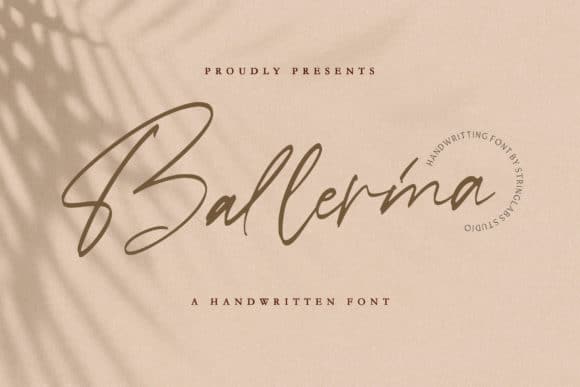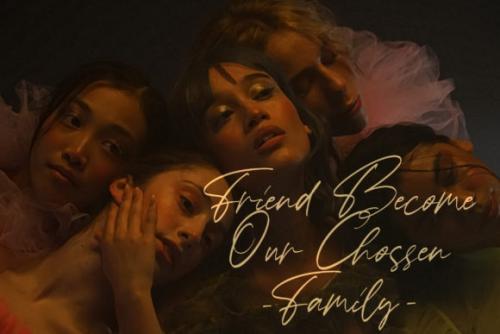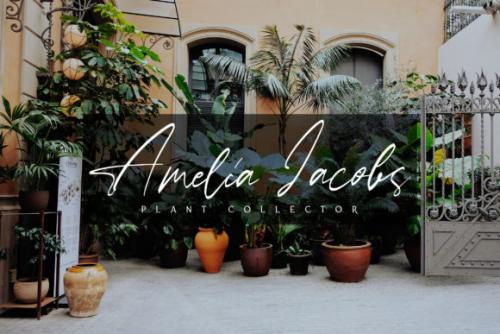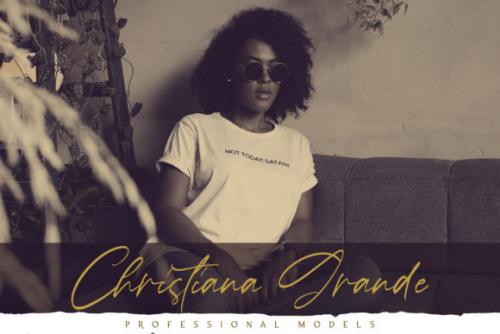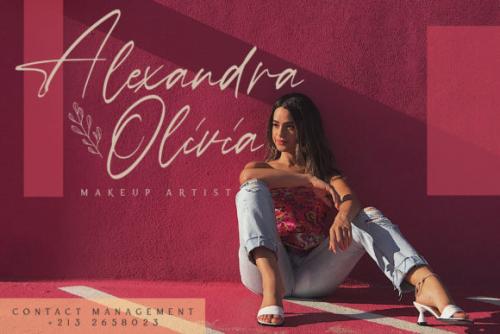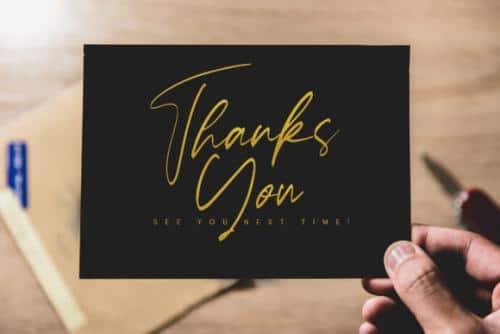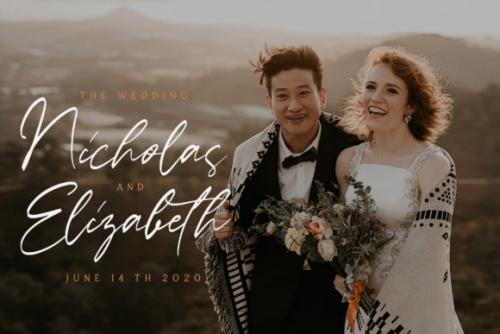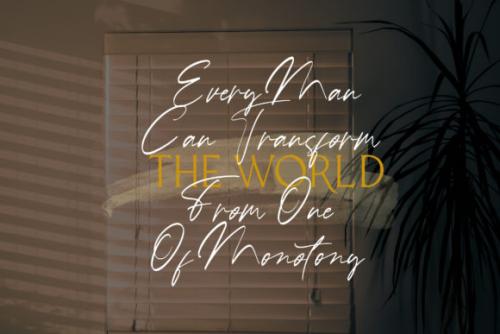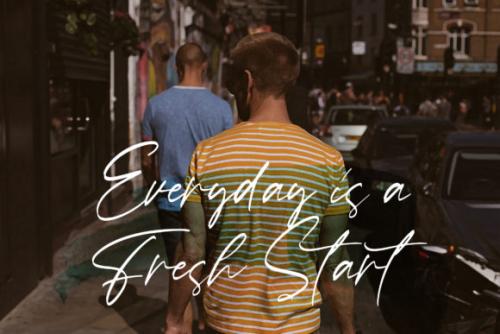
Ballerina Script Font is an exciting handwritten font with signature style, designed by StringLabs. This beautiful script can make your design project look elegant, classy, and modern.
It’s is a Signature Script Font with Modern Style. This font is perfect for fashion brand, wedding invitation, business card, logo brand, signature, and also calligraphy. This Font Template contains Classy, Elegant, Creative, Cool and has a Unique Concept.